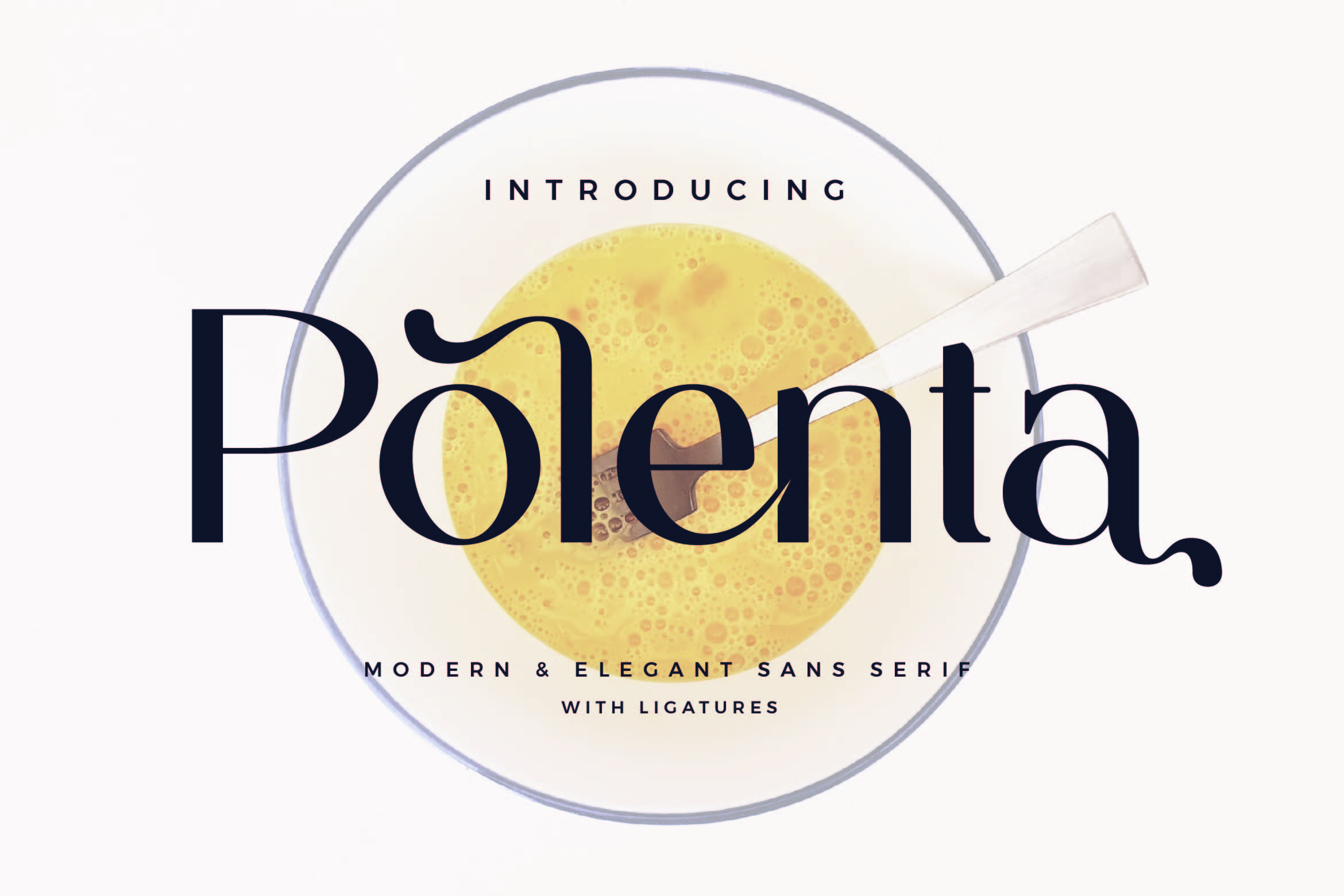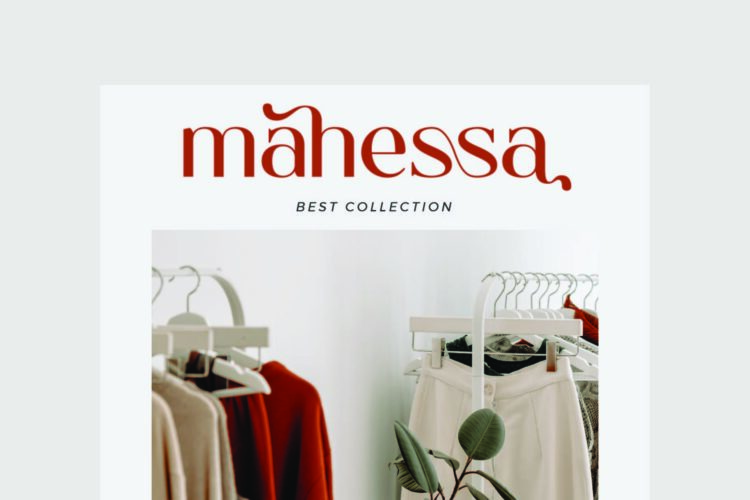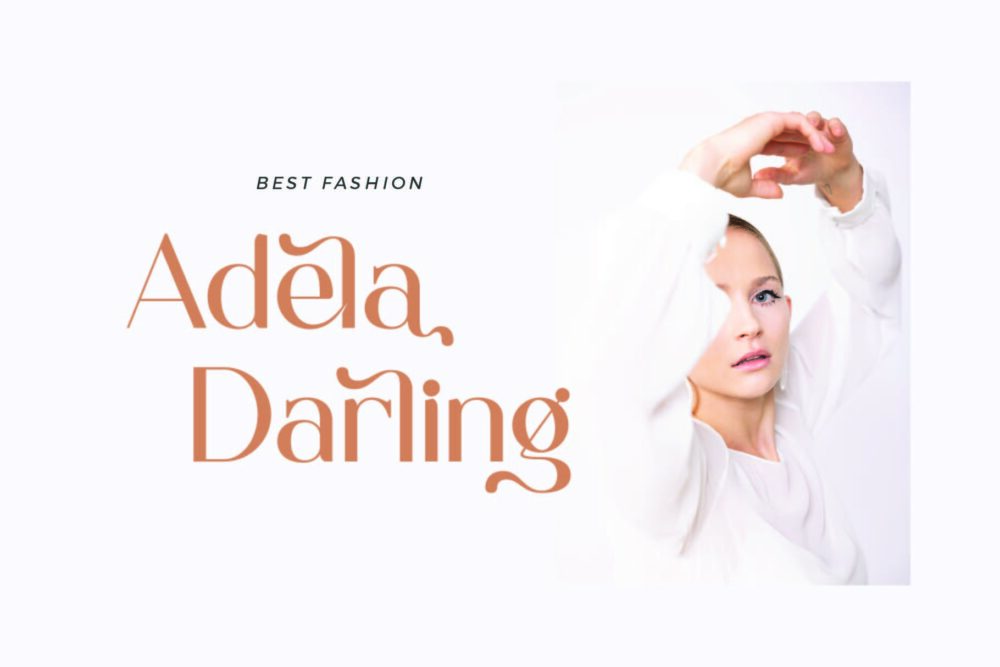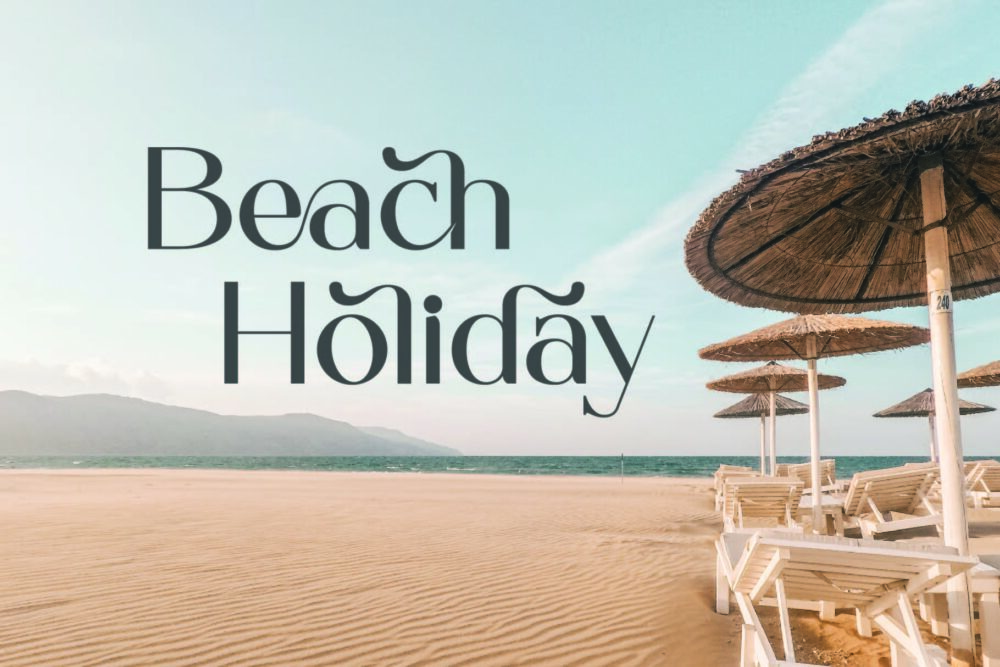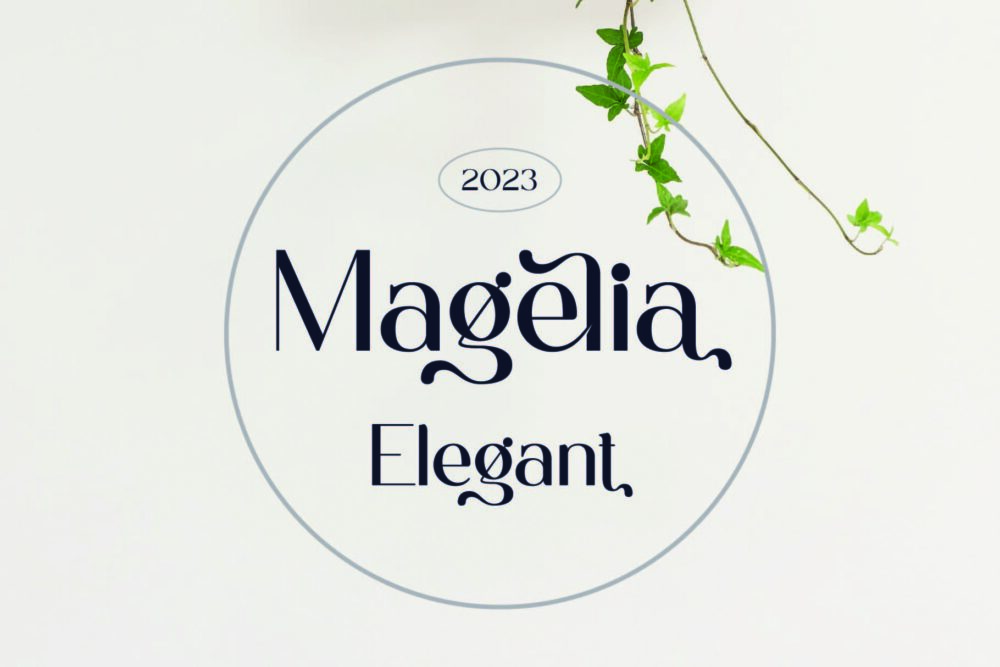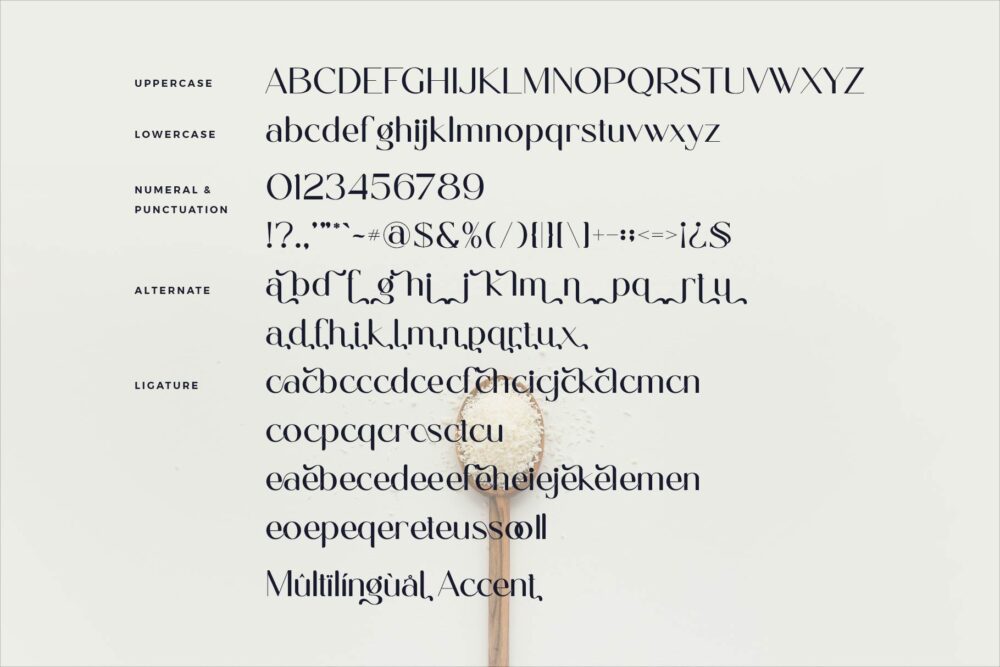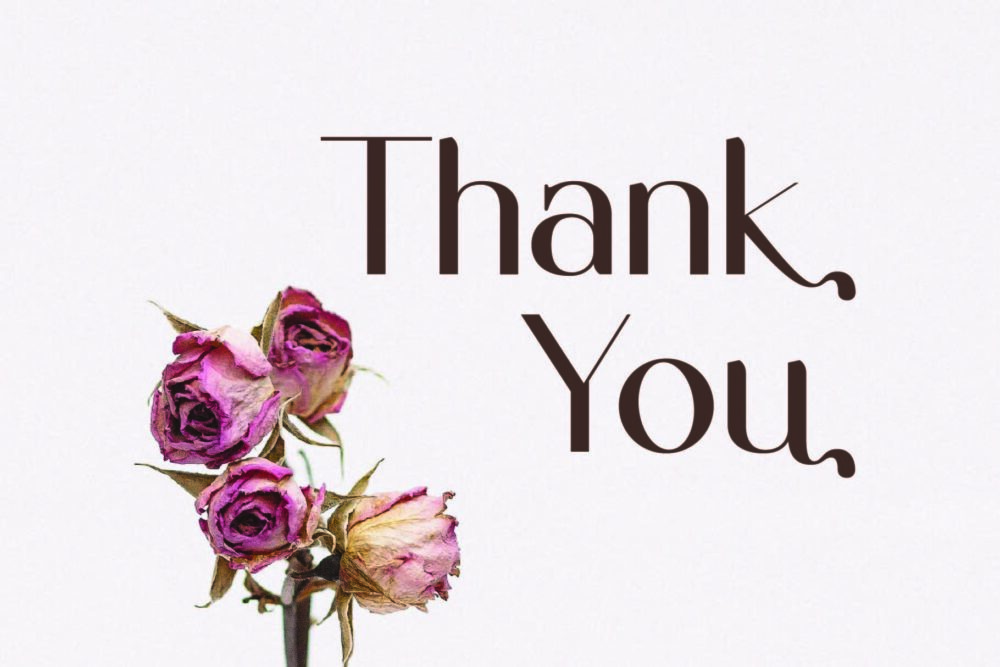
Polenta
Polenta Sans Font Typeface inspired by the famous minimalist logo perfect for the purposes of designing templates, brochures, videos, advertising branding, logos, invitation, layout design, elegant crafting, beauty design and other.
Polenta – Modern Elegant Sans Serif Font